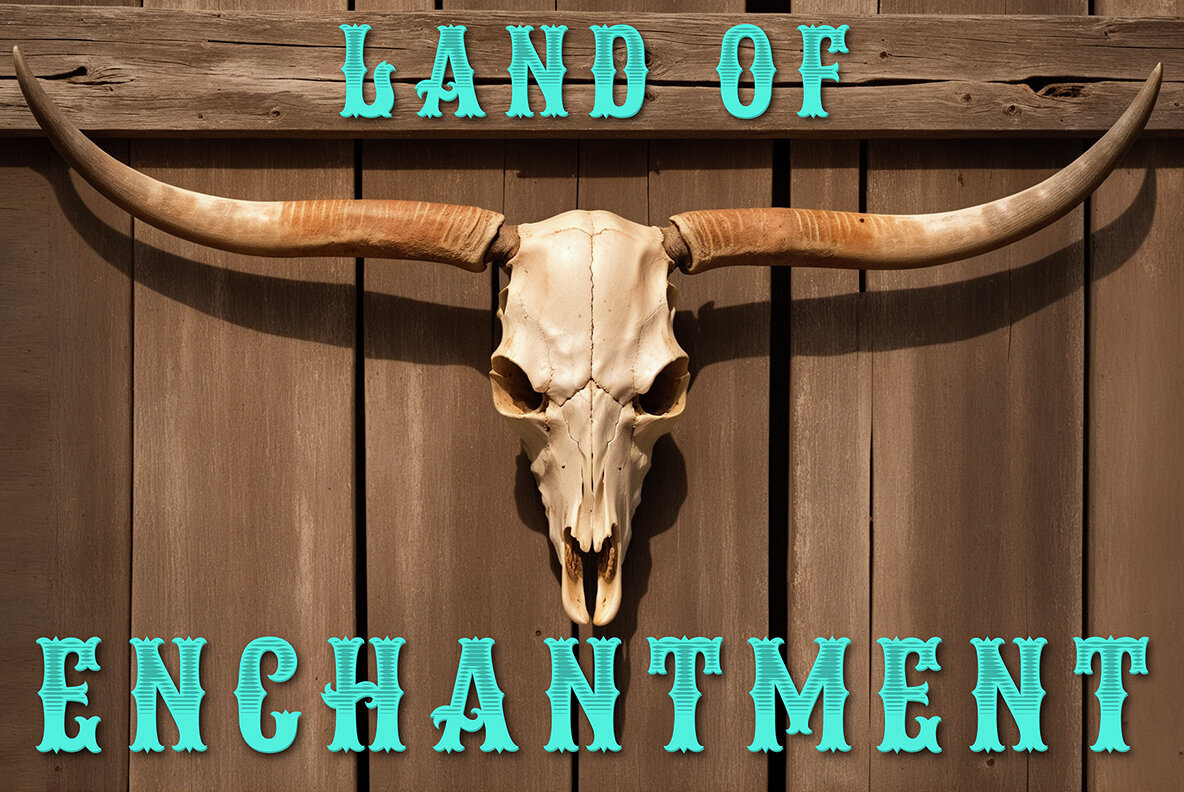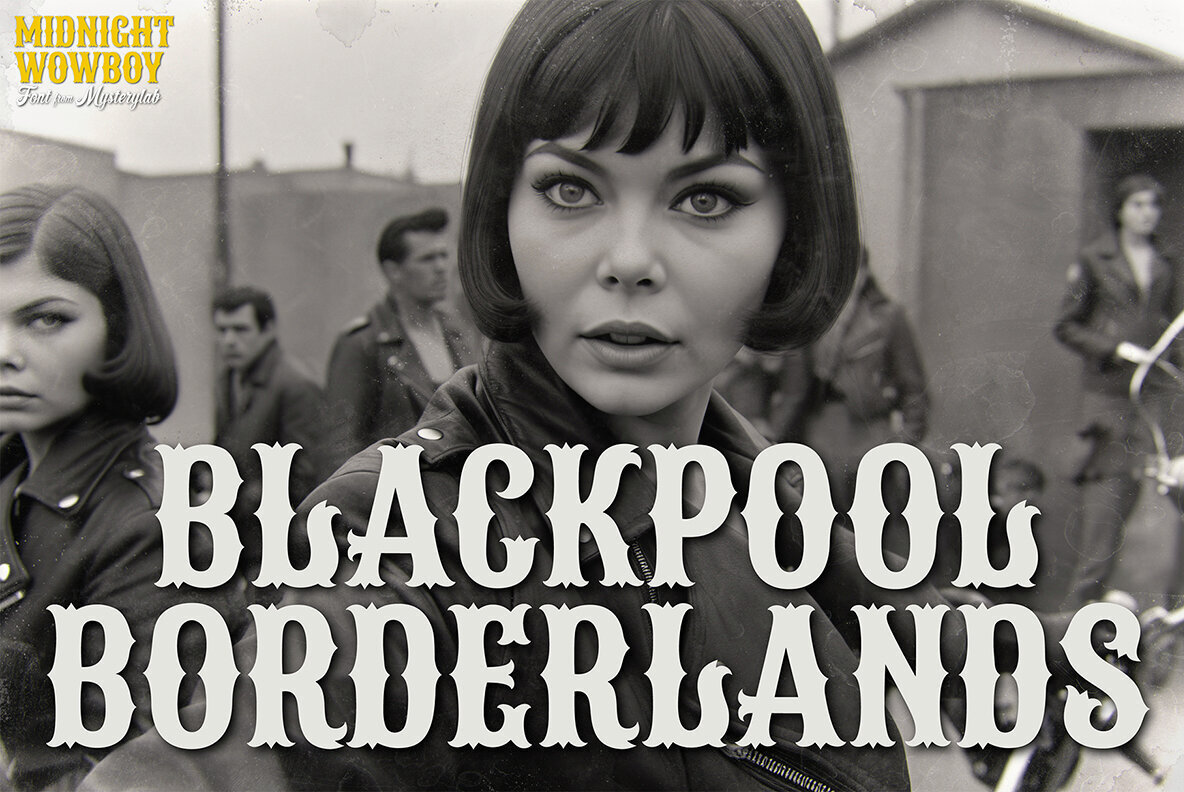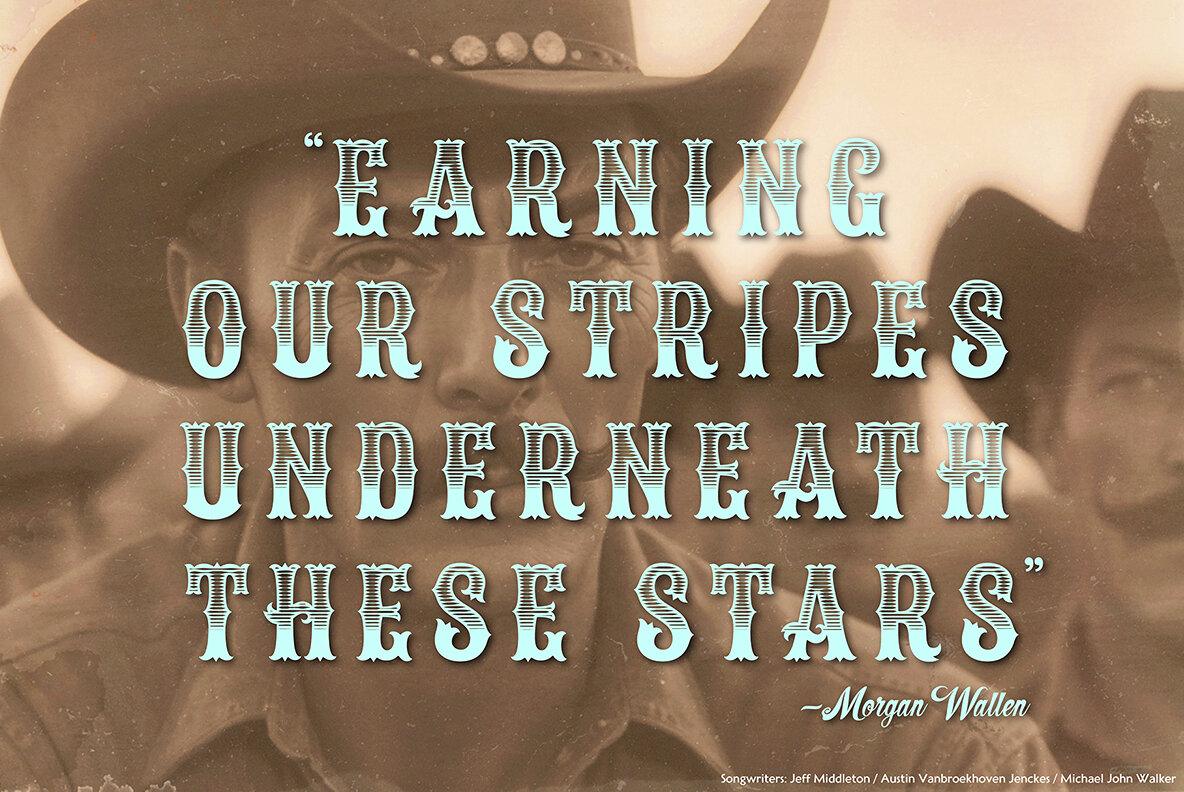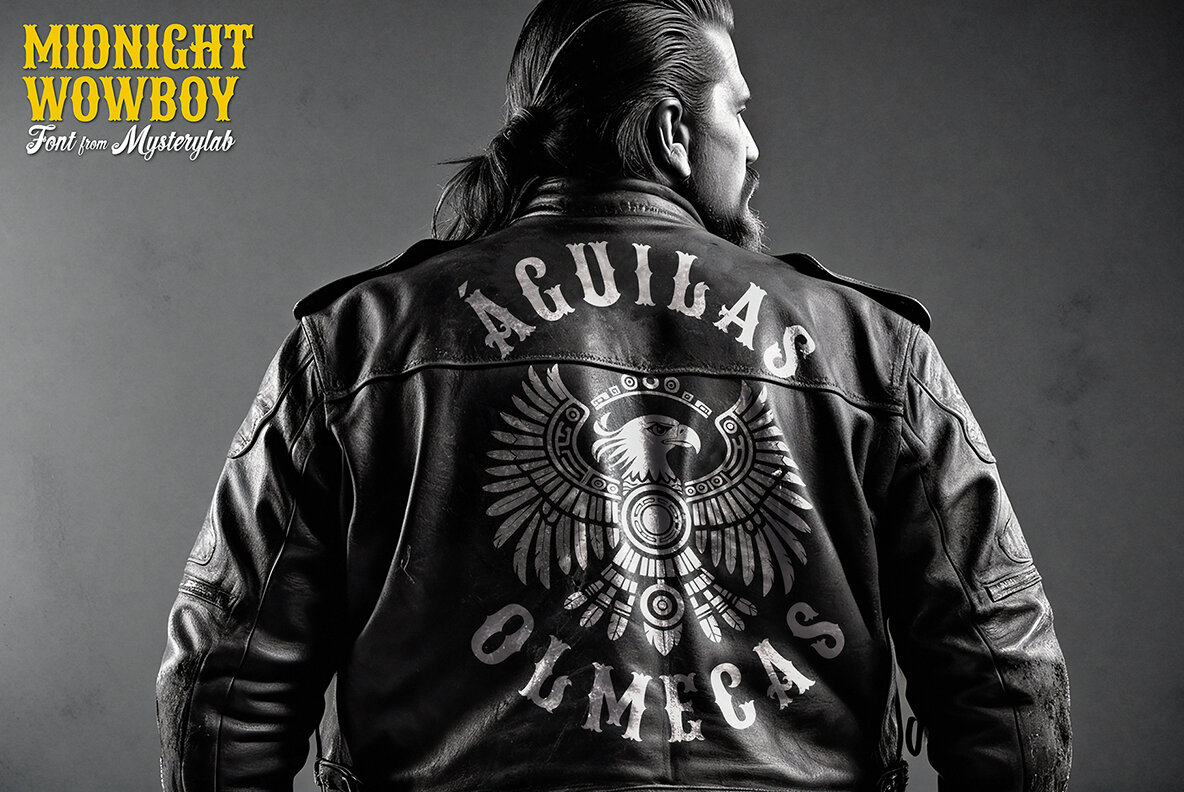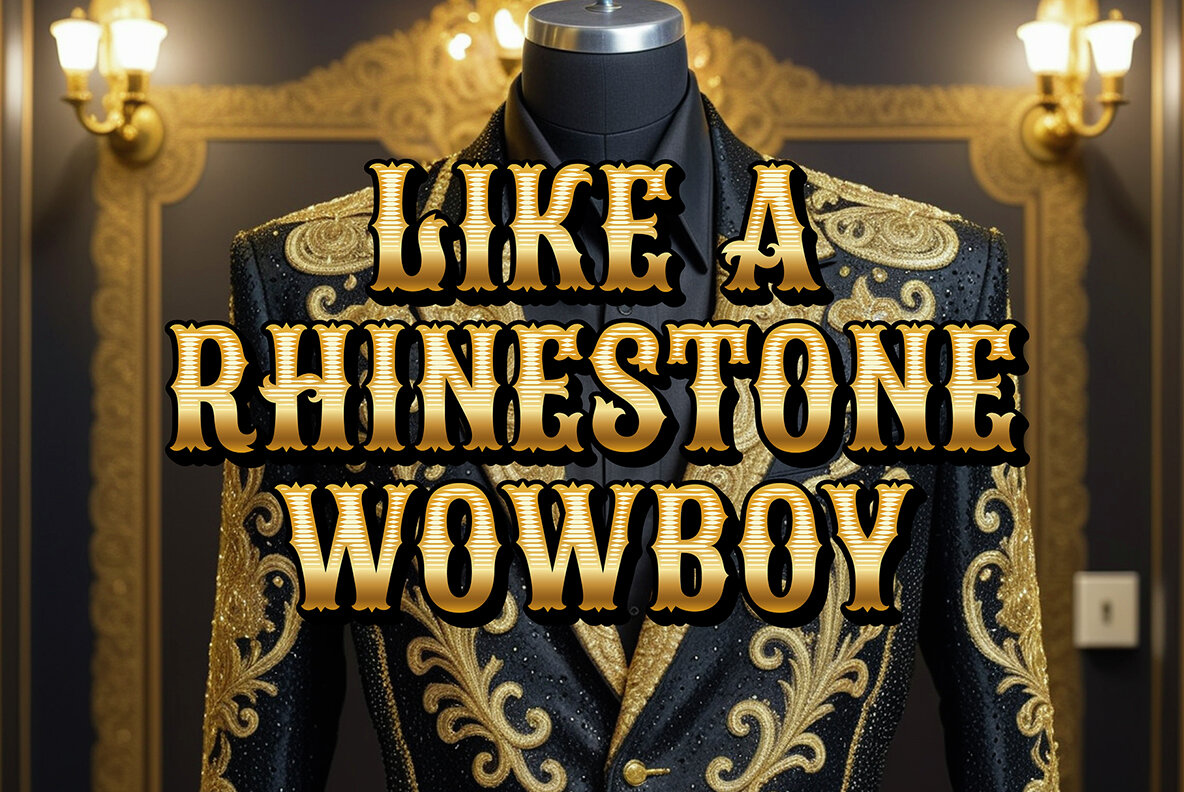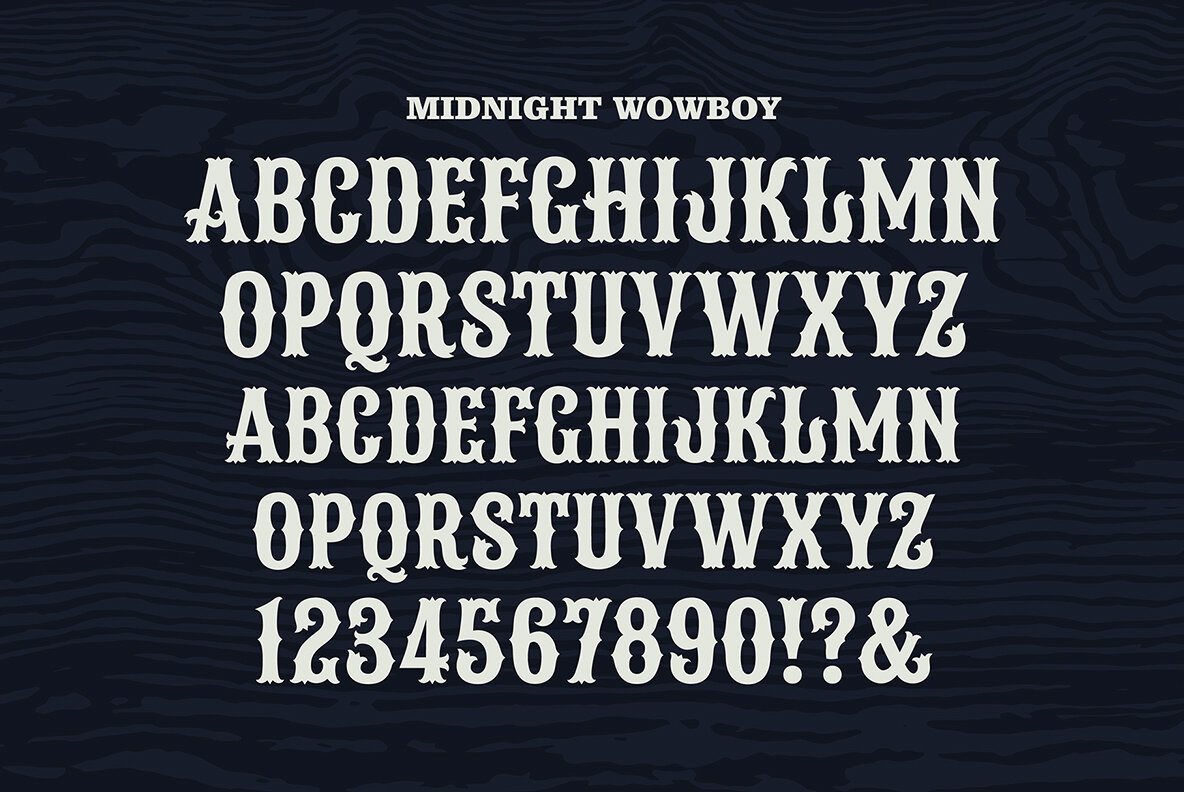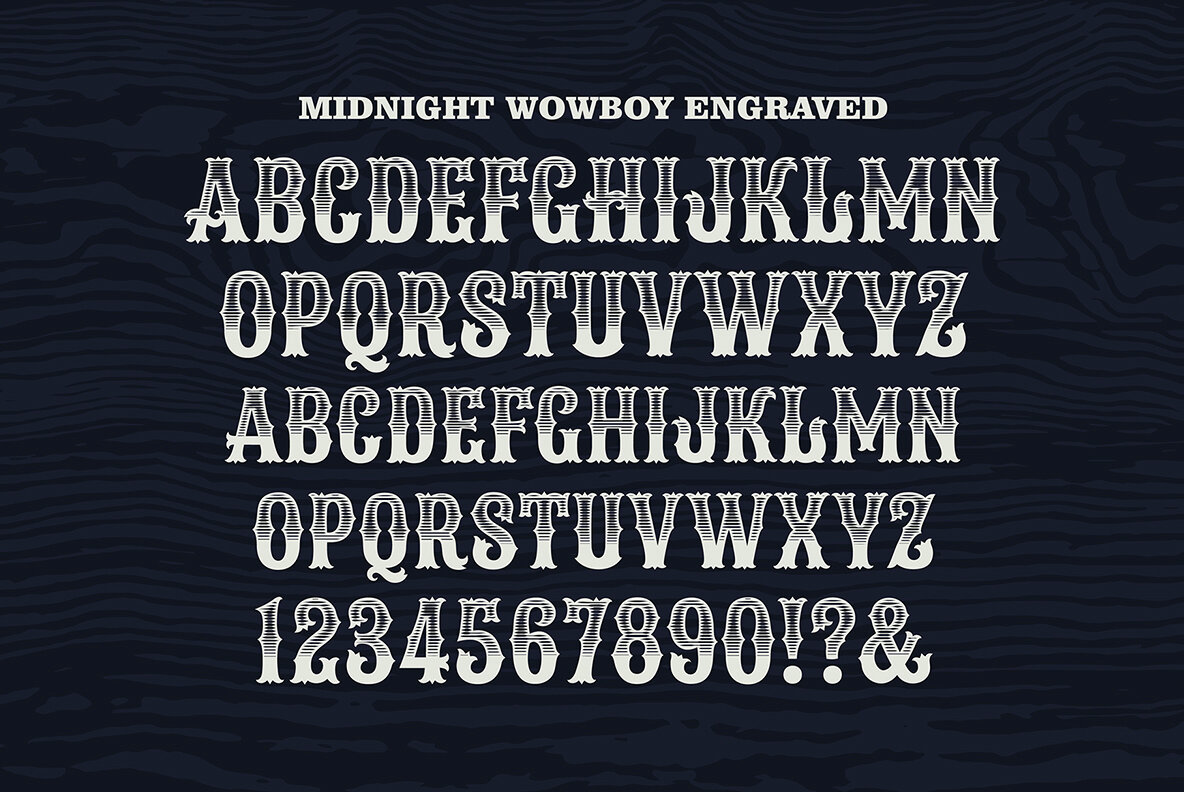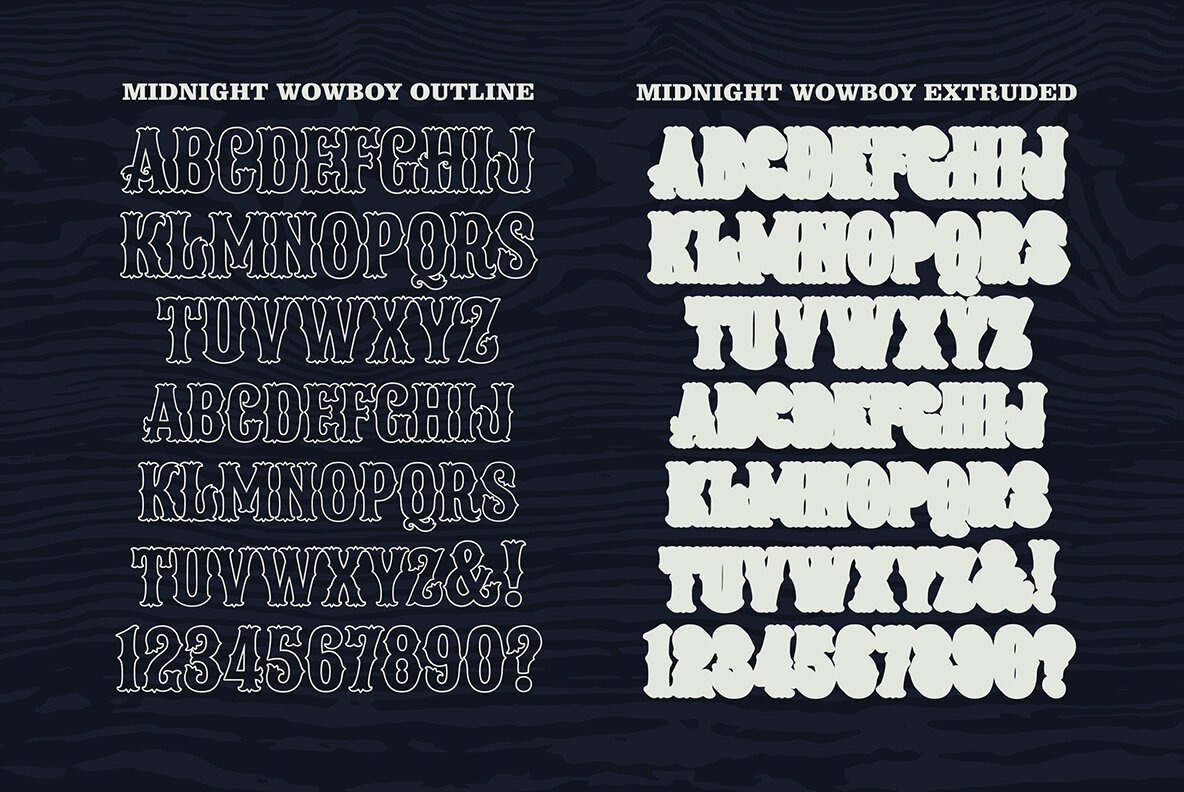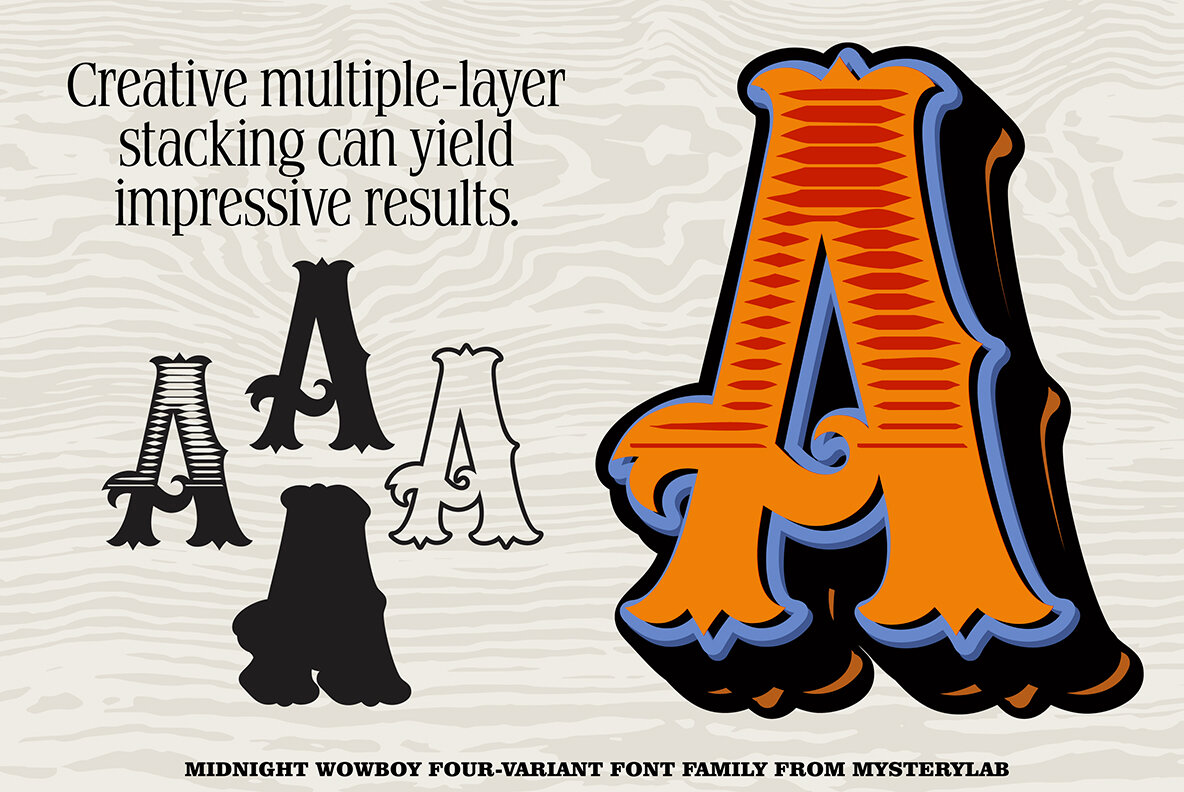
Midnight Wowboy Font
Midnight Wowboy Bold
Midnight Wowboy Bold Engraved
Midnight Wowboy Bold Extruded
Midnight Wowboy Bold Outline
Midnight Wowboy is a reimagined classic western/cowboy style alphabet, with a touch of flash, flamboyance and flourish. This ultra-versatile all caps + small caps font family is conceptualized as a powerful 4-part lettering-design system, opening up near-infinite combinations of colorized layer-stacking options. It’s the ideal tool for creating intricate customized variations, and it is suitable for a variety of genres and themes, including old west, equestrian, country & bluegrass music, circus/carnival, rodeo, farmer’s market, county fair, sports team, theme park, and apparel.